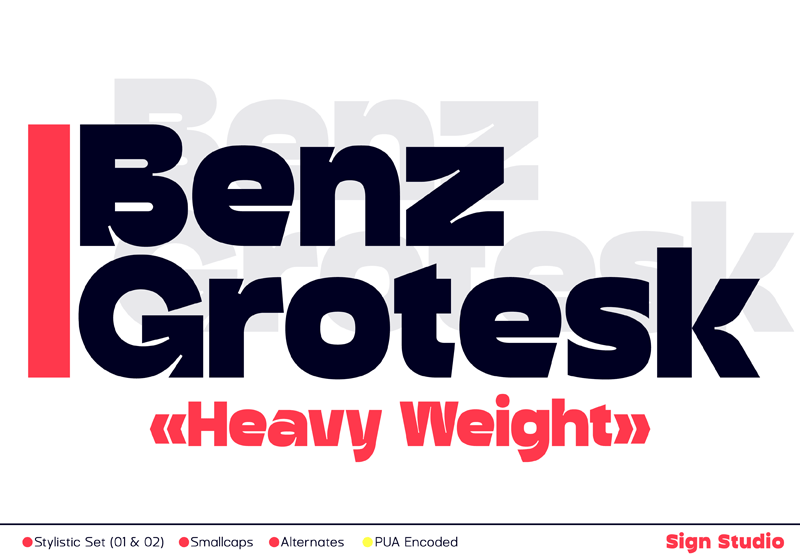
Preview and download Benz Grotesk Font. Created by Sign Studio in Basic Sans serif styles with Demo license.
Benz Grotesk can be used to style text that requires attention in a sentence but still has subtlety. We try to keep every corner well proportioned. With more than 400 characters, we hope that Benz Grotesk can support a fairly complete language. Has a fairly high detail with inktrap on some corners of the body. This font will help you when designing posters, headlines, product branding, logotypes, minimalist typography and more. This is a demo font. Personal use only. For commercial needs, please consider using the appropriate license which can be accessed at marketplace below: www.myfonts.com www.creativefabrica.com Thank you if you appreciate us by donating through Paypal here: https://paypal.me/sugi6991?locale.x=id_ID |